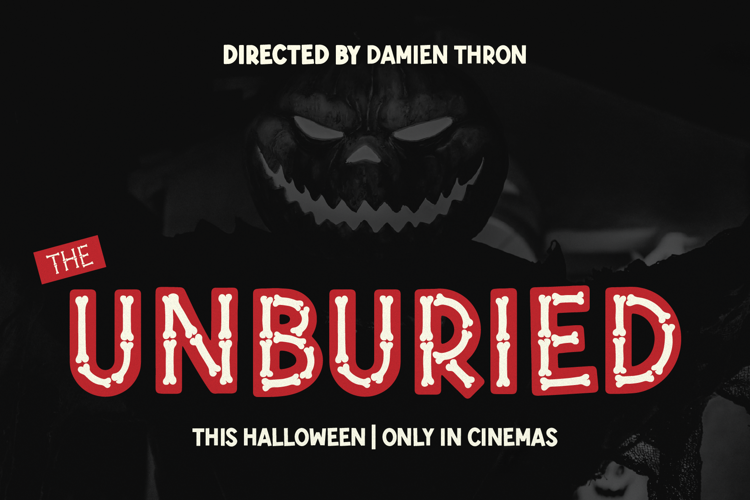
Hueso Bone Font
Bold Regular Style
Hollow Regular Style
Thin Regular Style
Hueso Bone | Halloween Bone Font product packaging, mugs, quotes, posters, shopping bags, t-shirts, book covers, name card, invitation cards, greeting cards, label, photography, watermark, special events, and all your other lovely projects that need a Halloween font taste.